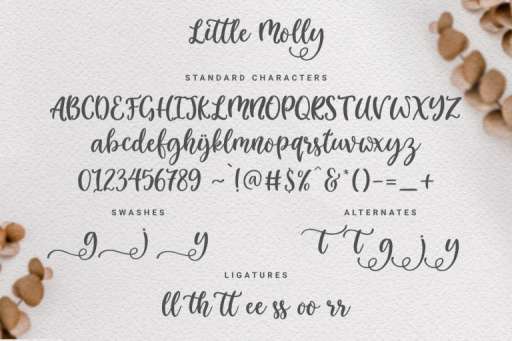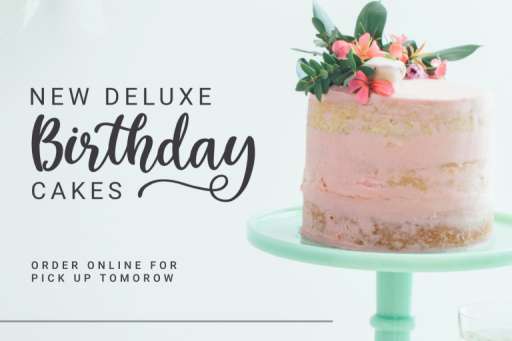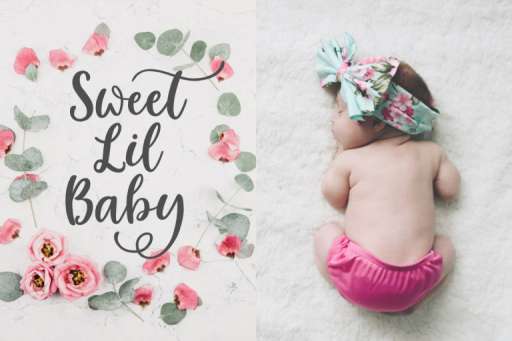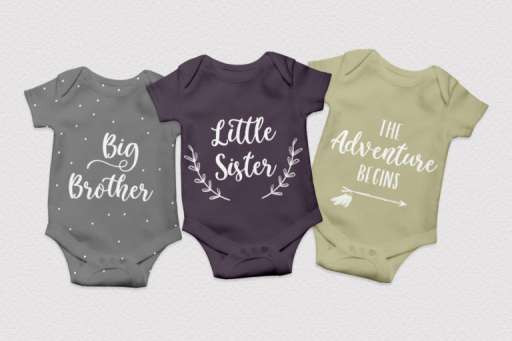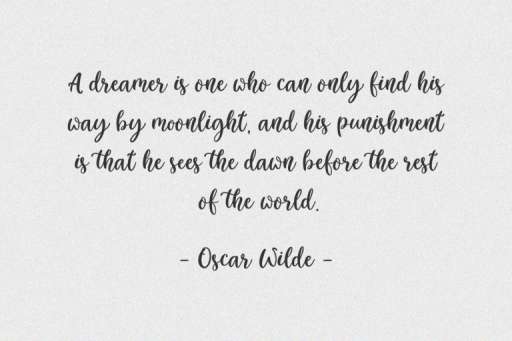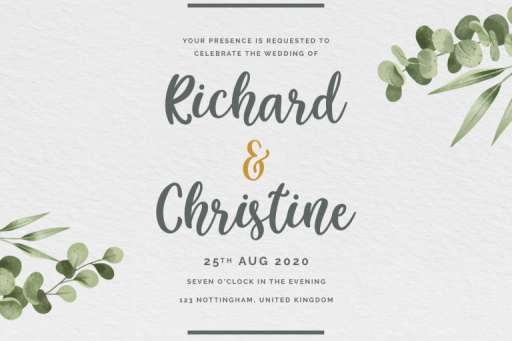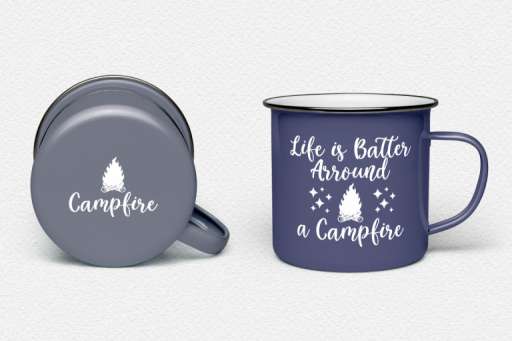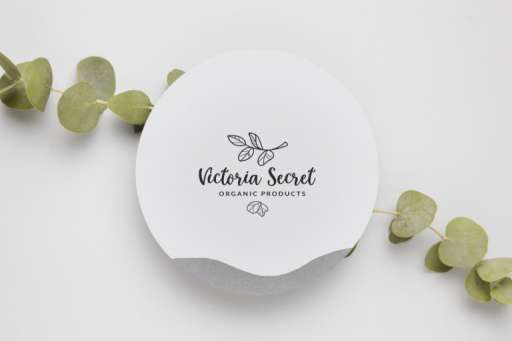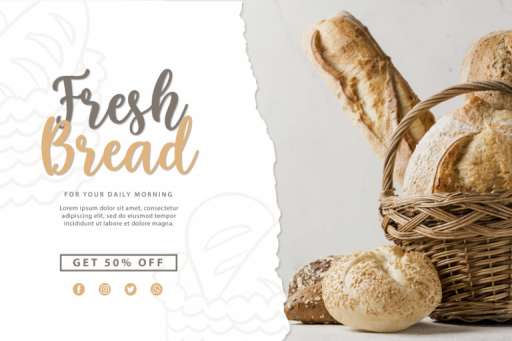
Little Molly Font - Script Business Font From Jimtype Studio
Little Molly Font
Little Molly – Modern Script
Little Molly Script is a playfully hand-lettered modern calligraphy script with characters dance along the baseline. It has a casual and elegant touch. Little Molly very perfectly with alternates, ligatures, and swashes character. Works perfectly for logos, branding, magazines, books, invitations, wedding/greeting cards, packaging, labels, apparel, marketing, etc.
Little Molly Features :
• Alternates
• Swashes
• Multilingual